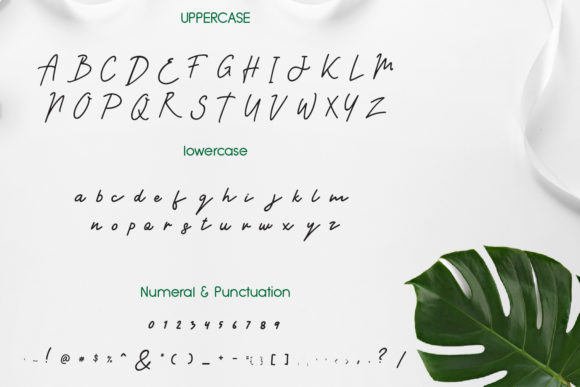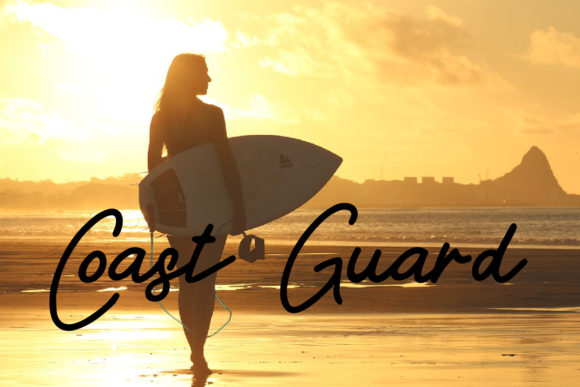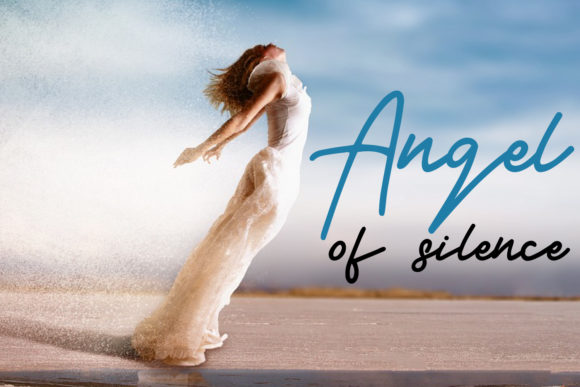
Introducing Fristy Font: The Perfect Handwritten Choice for Designers and Crafters
Are you a designer or crafter looking for a unique and beautiful font to elevate your creative projects? Look no further than Fristy Font, a simple and readable handwritten font that’s perfect for creating eye-catching logos, branding, and quotes. In this article, we’ll explore the features and benefits of Fristy Font, and why it’s the ideal choice for your next design project.
A Simple yet Elegant Design
Fristy Font is a beautifully crafted handwritten font that’s designed to be both simple and elegant. Each letter has a unique and beautiful touch, which will add a personal touch to your designs. The font is highly readable, making it perfect for use in a variety of applications, from logos and branding to quotes and social media graphics.
When it comes to creating a logo or branding for your business, you want a font that’s going to make a lasting impression. Fristy Font is the perfect choice, with its unique and beautiful lettering that will help your brand stand out from the crowd. The font is highly versatile, and can be used in a variety of contexts, from business cards and letterheads to website headers and social media graphics.
Unique and Beautiful Lettering
One of the standout features of Fristy Font is its unique and beautiful lettering. Each letter has been carefully crafted to have its own individual character, which will add a personal touch to your designs. The font is perfect for creating eye-catching quotes, social media graphics, and other visual content that will engage and inspire your audience.
So why should designers and crafters choose Fristy Font for their next project? Here are just a few benefits of using this amazing font:
- Highly readable: Fristy Font is designed to be highly readable, making it perfect for use in a variety of applications.
- Unique and beautiful lettering: Each letter has a unique and beautiful touch, which will add a personal touch to your designs.
- Highly versatile: Fristy Font can be used in a variety of contexts, from logos and branding to quotes and social media graphics.
- Easily customizable: Fristy Font is highly customizable, making it easy to adapt to your design needs.
How to Use Fristy Font in Your Designs
Using Fristy Font in your designs is easy. Here are a few tips to get you started:
- Use it for logos and branding: Fristy Font is perfect for creating eye-catching logos and branding for your business.
- Create quotes and social media graphics: Fristy Font is highly readable and perfect for creating quotes and social media graphics that will engage and inspire your audience.
- Add a personal touch: Use Fristy Font to add a personal touch to your designs, and make them stand out from the crowd.
In conclusion, Fristy Font is a simple and readable handwritten font that’s perfect for designers and crafters looking to elevate their creative projects. With its unique and beautiful lettering, high readability, and versatility, Fristy Font is the ideal choice for creating eye-catching logos, branding, and quotes. So why wait? Download Fristy Font today and start creating stunning designs that will engage and inspire your audience!